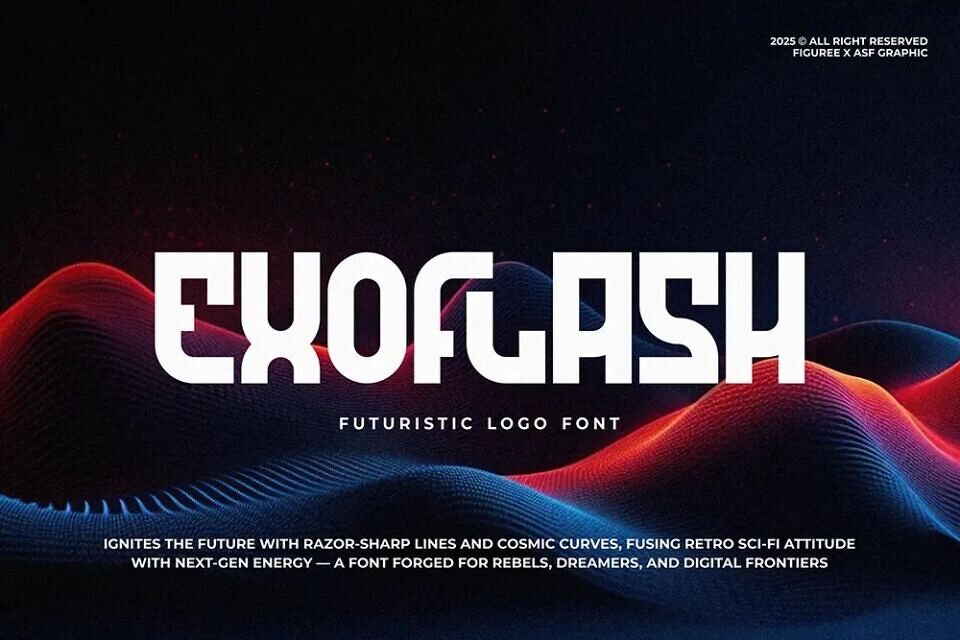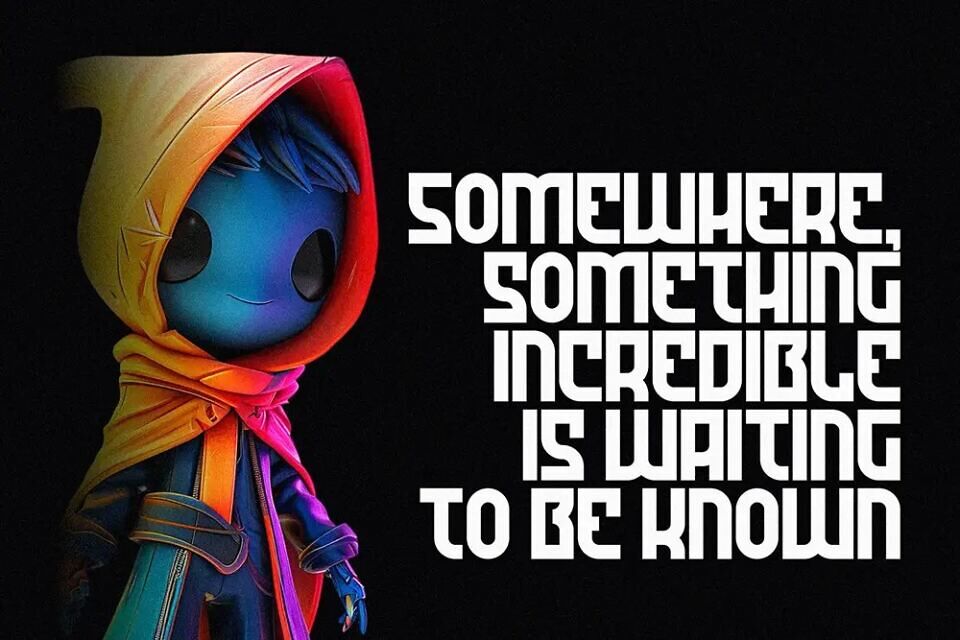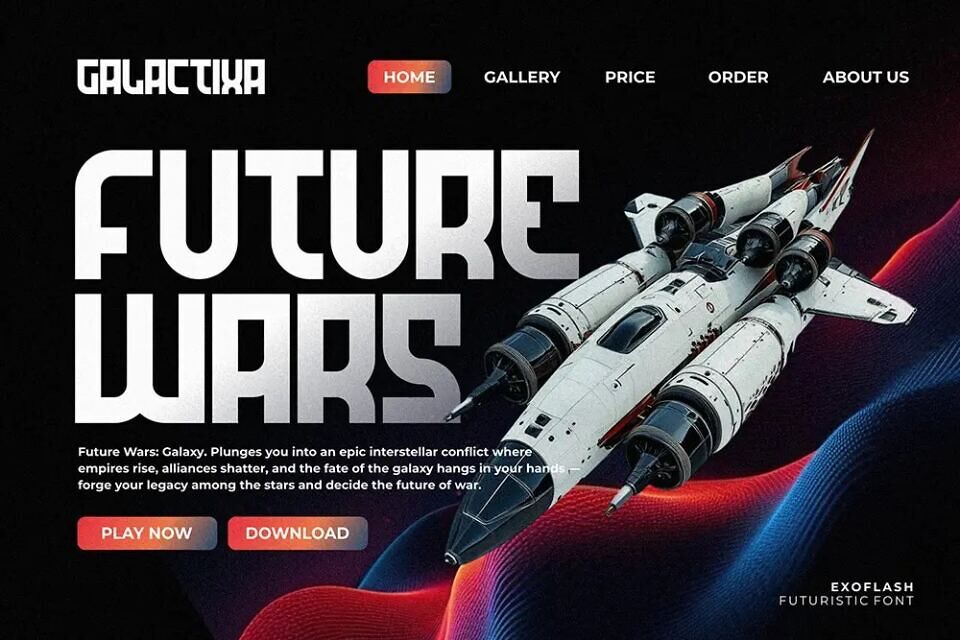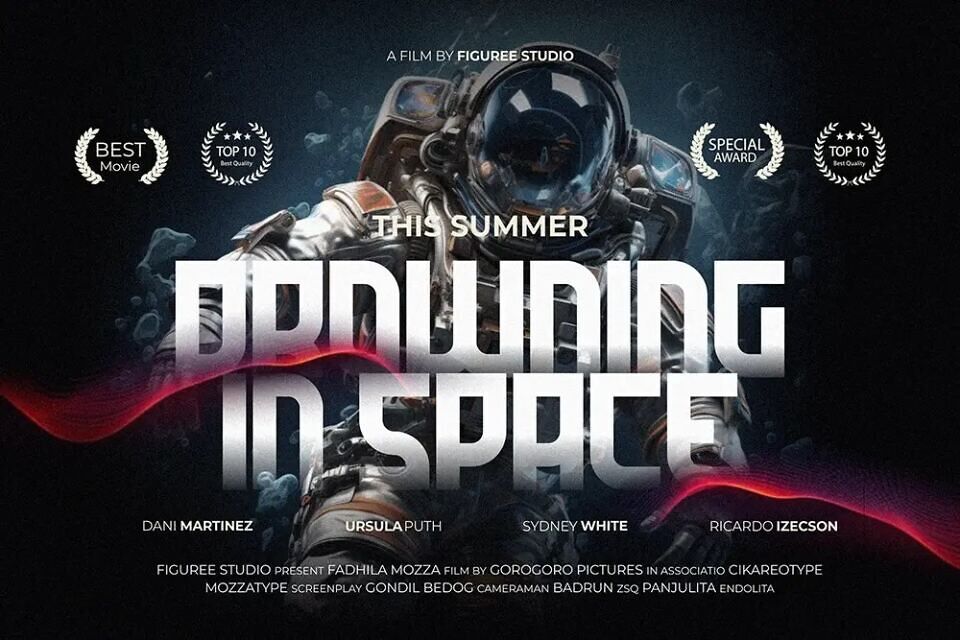
Exoflash Font
Fonts shape first impressions. That’s why your brand needs a typeface that looks sharp, modern, and future-ready. Exoflash brings all of that.
It’s a futuristic logo font created for tech-driven designs. With clean angles and sleek curves, it fits right into the world of sci-fi, cyber branding, and esports visuals.
Whether you’re designing for a bold startup or a digital game UI, Exoflash helps you stand out fast.